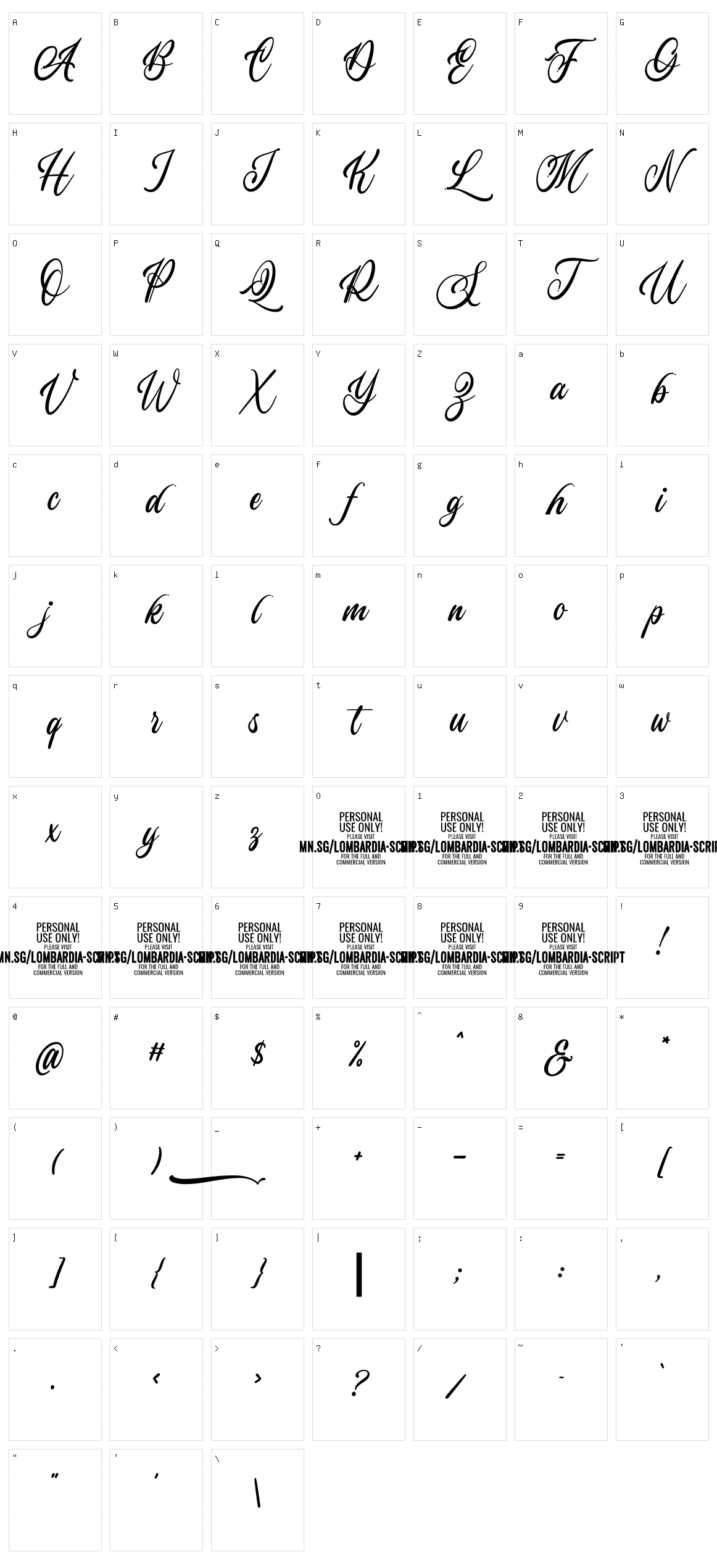
Lombardia Script is a creative and decorative script font that exudes vividness and elegance. This font is perfect for designing logotypes, tattoos, and other projects that require a signature-like quality.
Designed with the art of calligraphy in mind, Lombardia Script features a delicate and expressive stroke that gives it a natural and authentic look. Its ink and brush-like appearance adds to its creativity and uniqueness, making it a great choice for any project that requires a touch of sophistication.
Lombardia Script comes in four styles: Regular, Italic, Bold, and Bold Italic. This range of styles provides versatility and allows for dynamic and creative designs.
With its beautiful and flowing letterforms, Lombardia Script is the perfect choice for adding a touch of elegance and creativity to any project.
Use underscores _ anywhere in a word to make a swash.
Example: Wonder_woman
Use multiple underscores to make different swashes.
Example: Extra__vagant
The font is built with advanced OpenType functionality and has a guaranteed top-notch quality, containing stylistic and contextual alternates, ligatures and more features; all to give you full control and customizability.
It has extensive lingual support, covering all Latin-based languages, from Northern Europe to South Africa, from America to South-East Asia.
It contains all characters and symbols you'll ever need, including all punctuation and numbers.